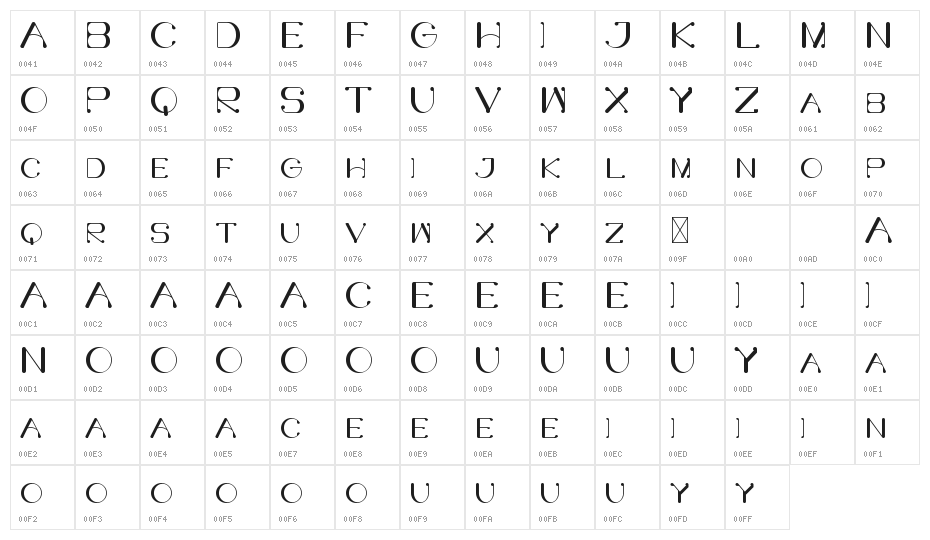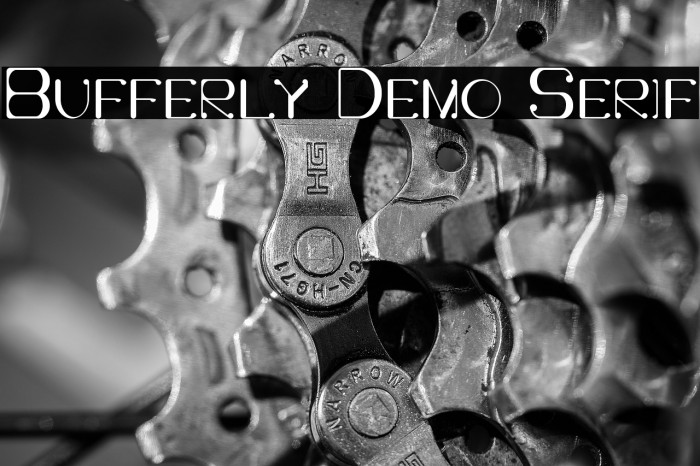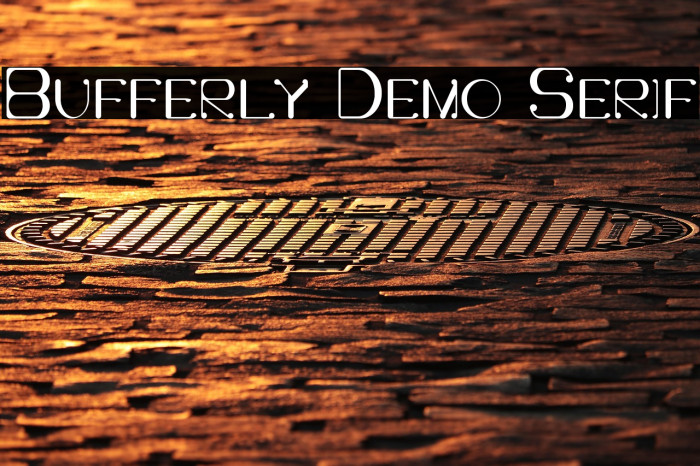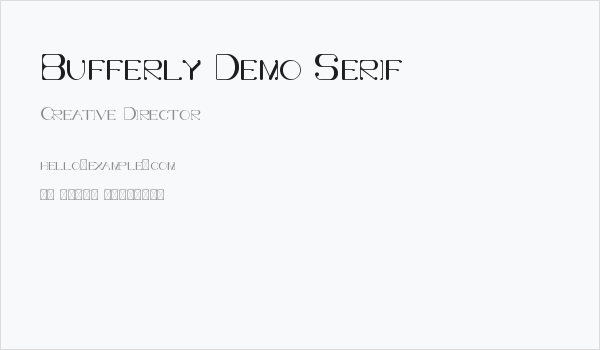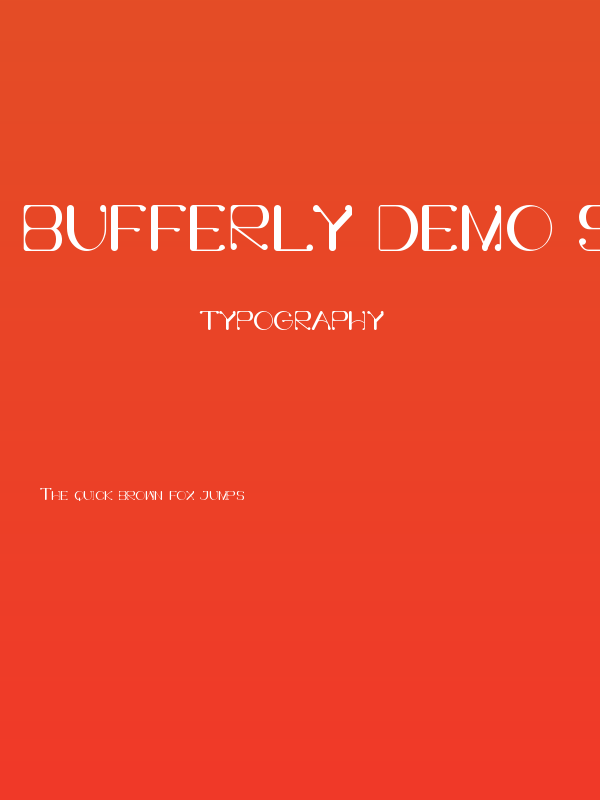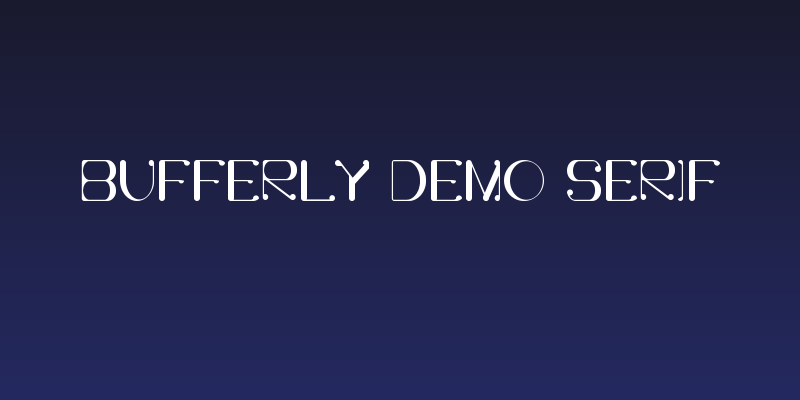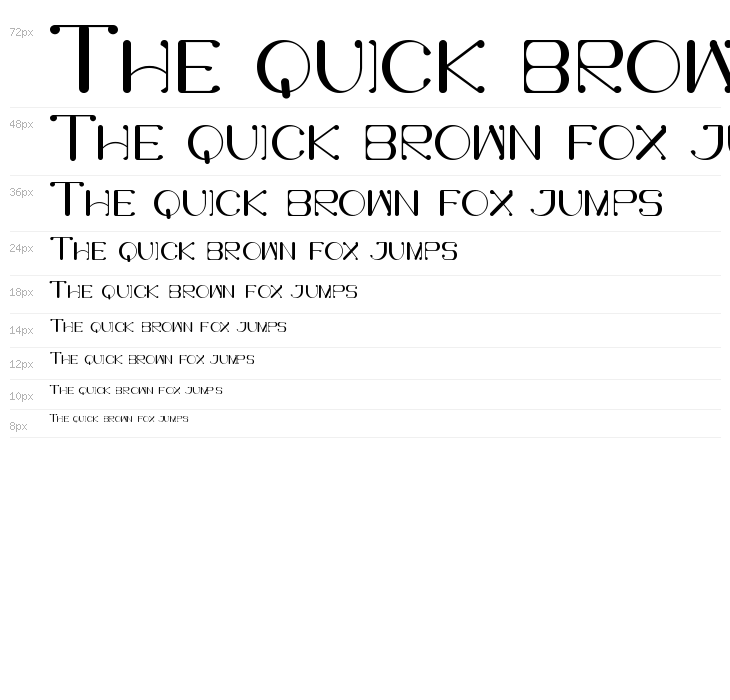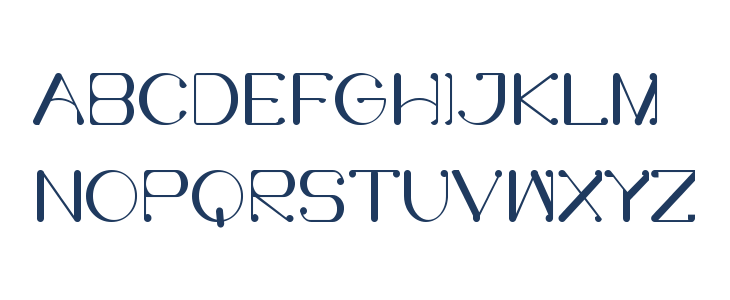
Bufferly Demo Serif Font
Bufferly Demo Serif Description
This font features a unique and modern design with a blend of geometric and organic elements. The characters are constructed with a combination of thick and thin strokes, creating a high contrast that draws attention. The rounded terminals and the use of dots at the ends of certain strokes add a playful and decorative touch. The overall appearance is clean and structured, yet it maintains a sense of creativity and flair. This font is well-suited for projects that require a contemporary and eye-catching typeface.
| Proposed Projects | Ideal for branding, advertising, and editorial design where a modern and distinctive look is desired. |